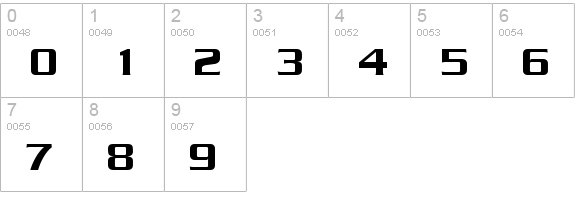
BoostSSK Font Details
BoostSSK is a modern and stylish font that exudes confidence and energy. With its bold and sleek design, BoostSSK is perfect for creating eye-catching headlines, posters, and branding materials. This versatile font is sure to make your projects stand out and leave a lasting impression. The best part about BoostSSK font is that it is completely free! You can easily download it at FontsMarket.com and start using it in your designs right away. Don't miss out on this amazing opportunity to elevate your projects with the dynamic BoostSSK font.